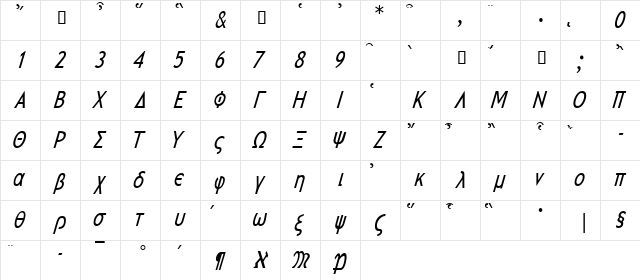
Galilee Italic
| Foundry | Rodney J. Decker |
| Designer | Rodney J. Decker |
Design Context for Galilee Typeface
Galilee takes a measured approach to typography — its balanced proportions and neutral character make it a reliable workhorse for both digital and print work. Its italic angle brings a sense of urgency and motion to the letterforms.